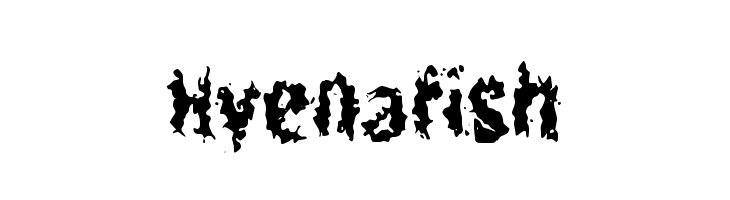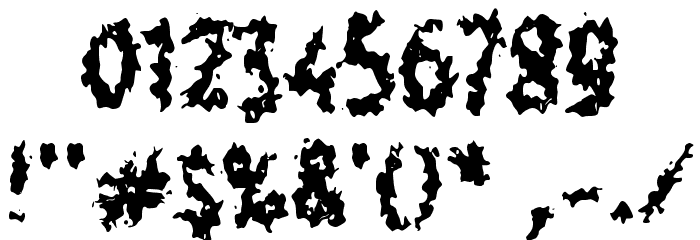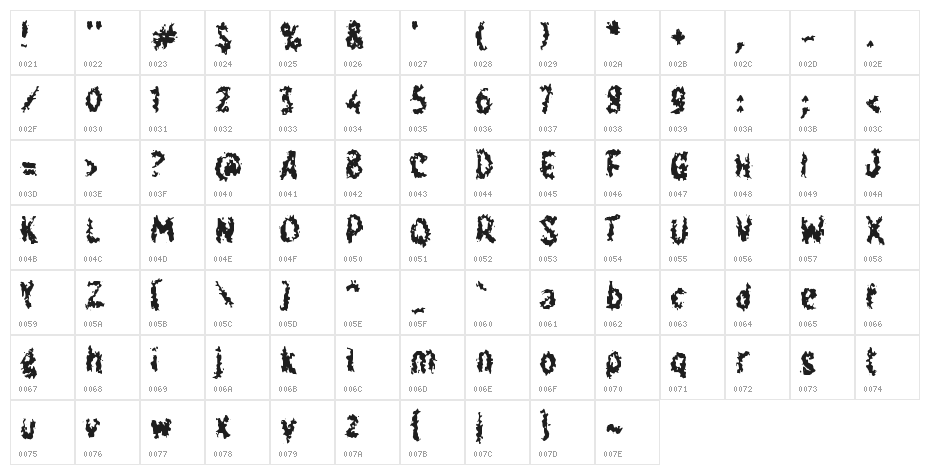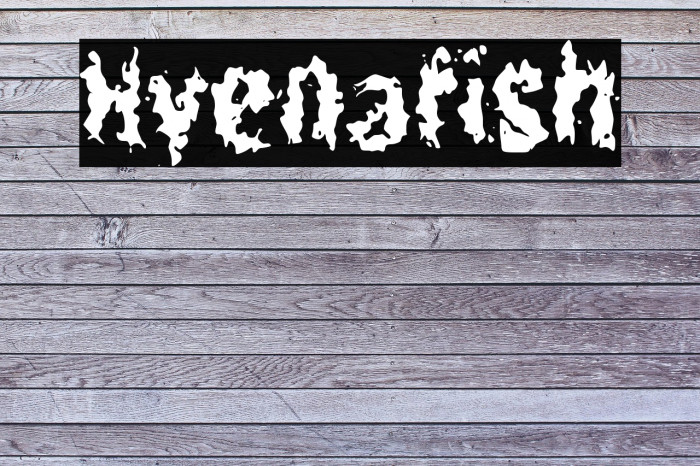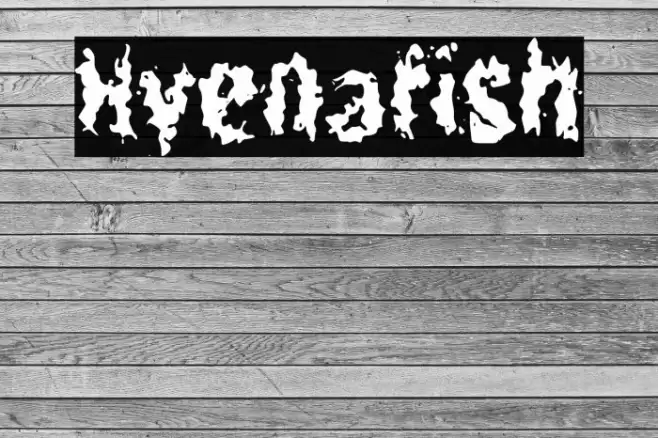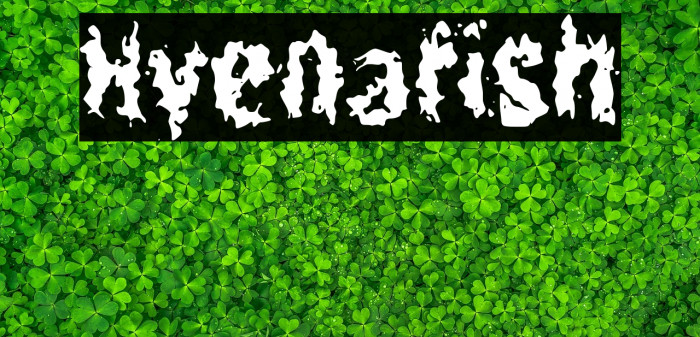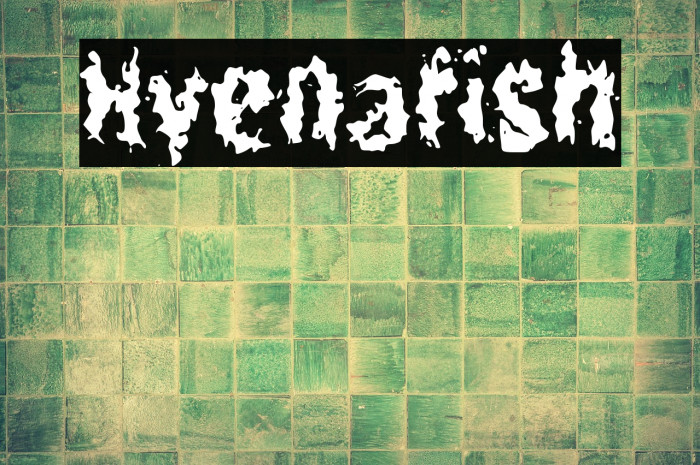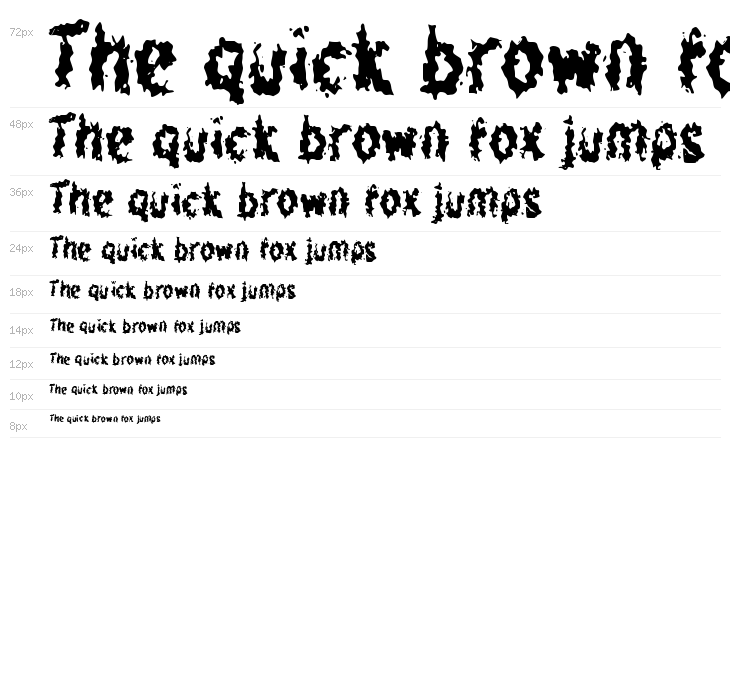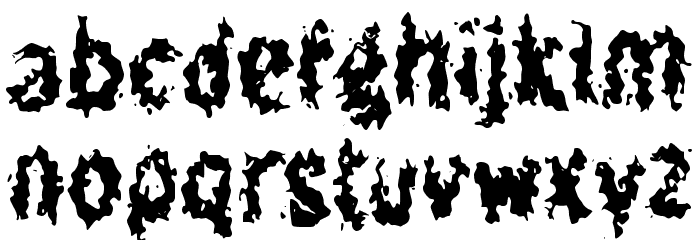
Hyenafish Font
| おすすめプロジェクト | Ideal for horror-themed designs, album covers, posters, or any project requiring a dramatic and unconventional typeface. |
Hyenafish